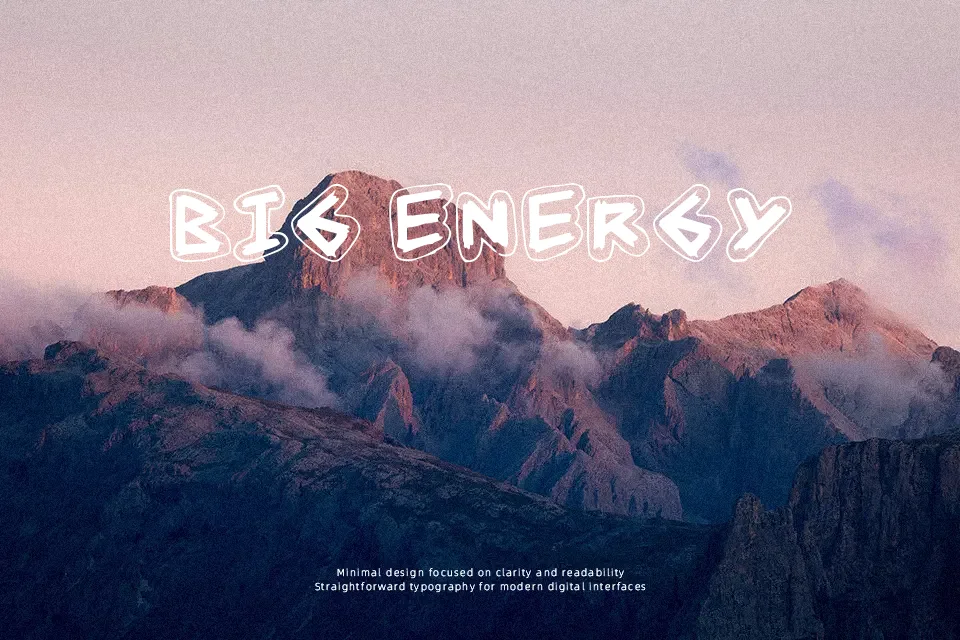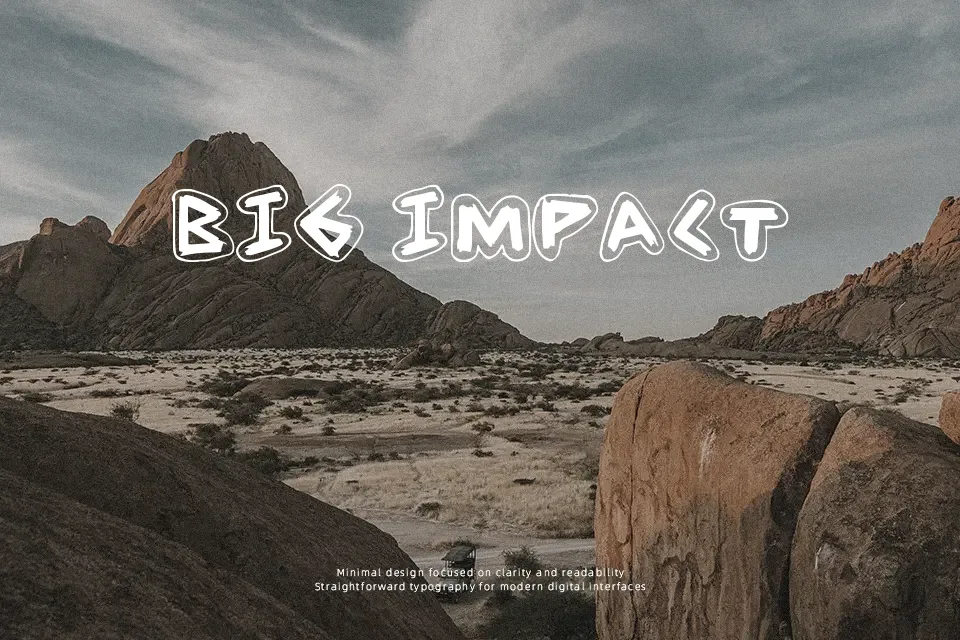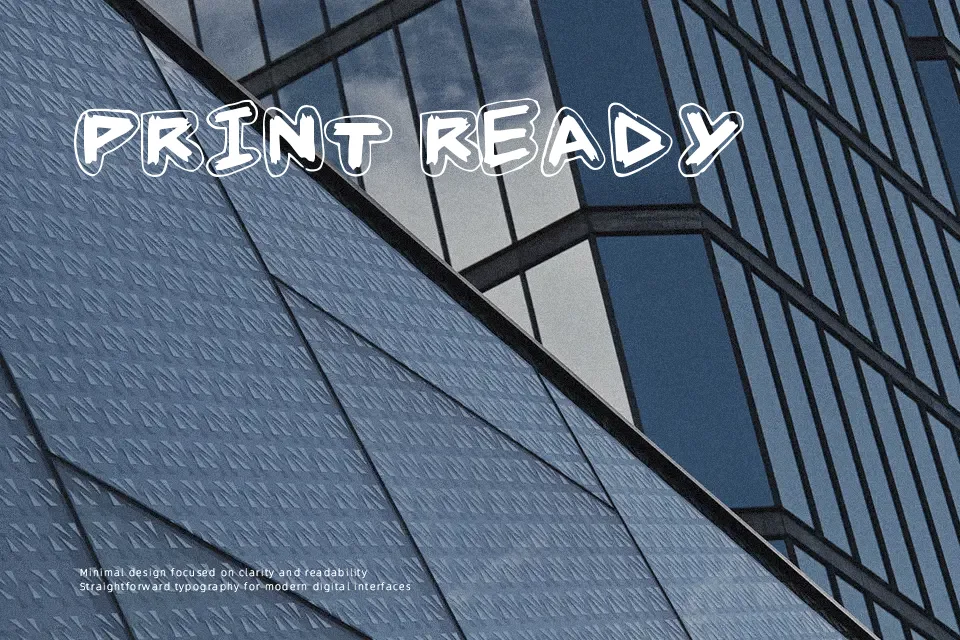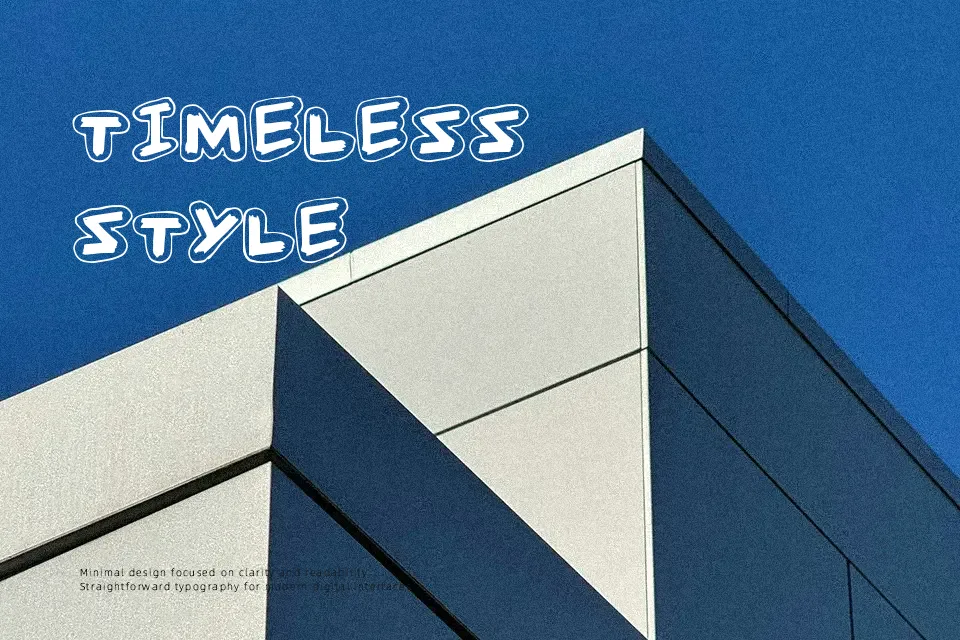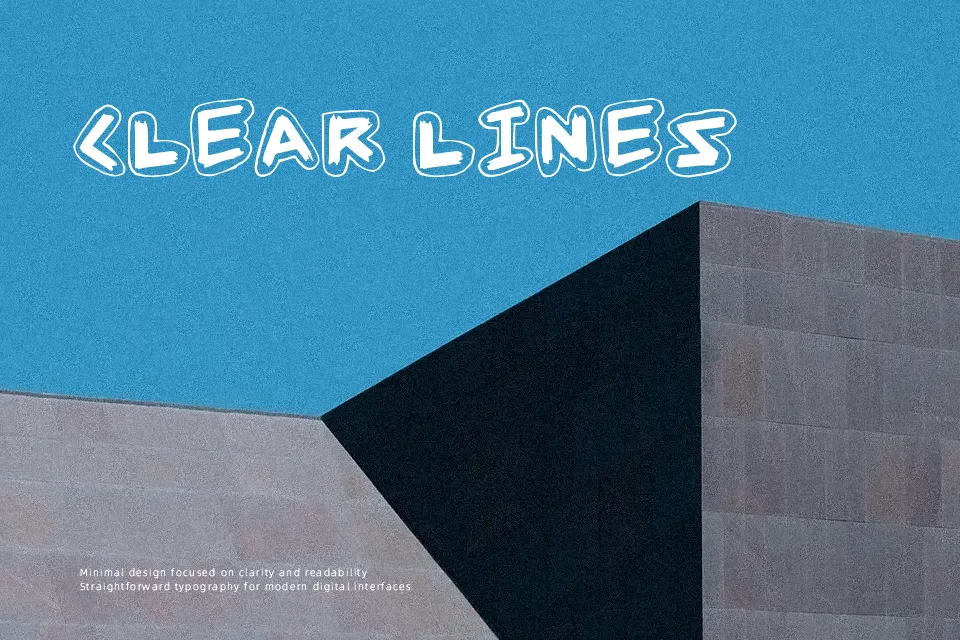
Angle Stroke Font
Angle Stroke comes in as a chunky, high-impact cartoon display face with heavy strokes, tight internal shapes, and integrated shadowing that gives each letter a popped, almost sticker-like look. The style feels playful and a bit noisy, making it suitable for comic book covers, toy packaging, children’s event posters, or bold social media graphics where fun is the priority. Because of its thick forms and decorative shadow detail, it quickly becomes overwhelming in long text blocks or small sizes. It works well when you want one or two loud words to dominate a layout, but falls short if you need subtle hierarchy or refined, professional typography.
comic book title graphics
kids’ event posters and flyers
toy or candy packaging headers
playful social media banners
long paragraph text or captions
formal corporate branding or documents
small-size UI labels or buttons
minimalist editorial layouts
Perfect for branding, headline, and logo, with a artistic and cartoon style.